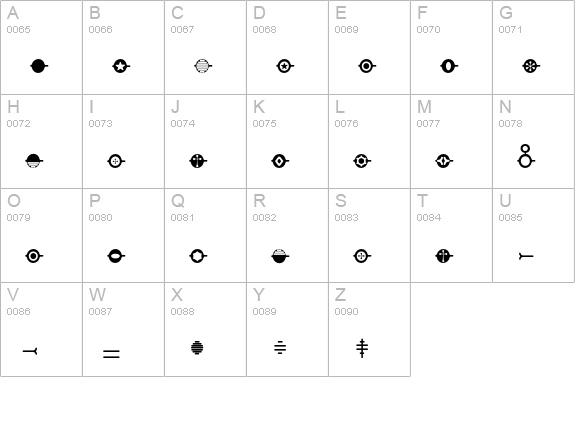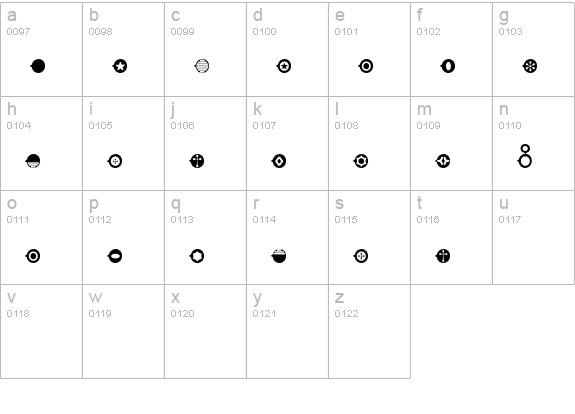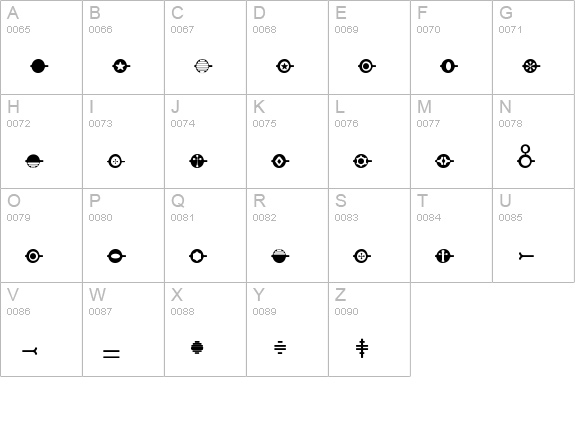
AeosAttachments Font Details
AeosAttachments font is a modern and sleek typeface that adds a touch of sophistication to any design project. With its clean lines and elegant curves, this font is perfect for creating professional and eye-catching visuals. The versatility of AeosAttachments makes it suitable for a wide range of applications, from branding and advertising to web design and print materials. What makes AeosAttachments even more appealing is that it is available for free download at FontsMarket.com. This means you can easily access and use this stylish font in your projects without any cost. Don't miss out on the opportunity to enhance your designs with the unique charm of AeosAttachments font. Download it today and elevate your creative work to the next level.